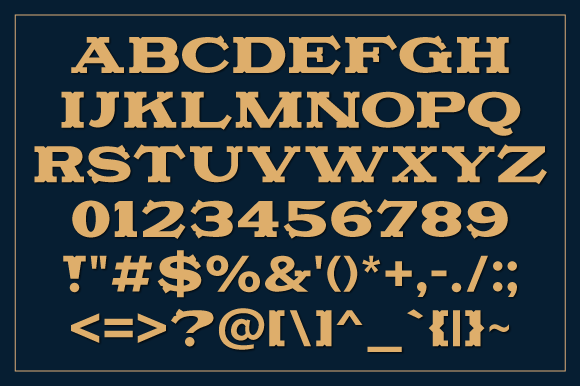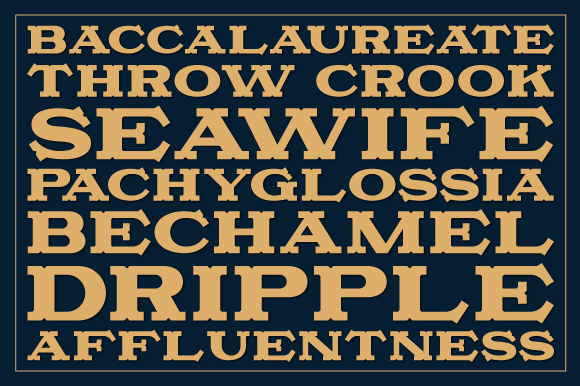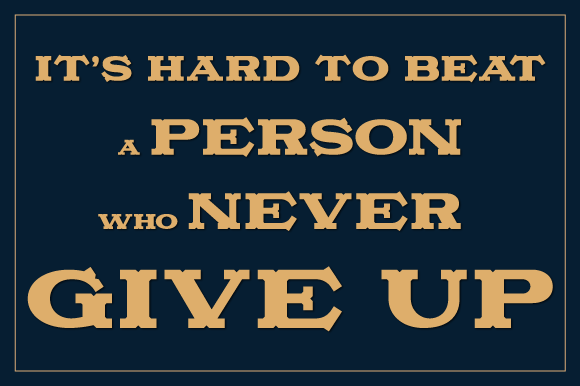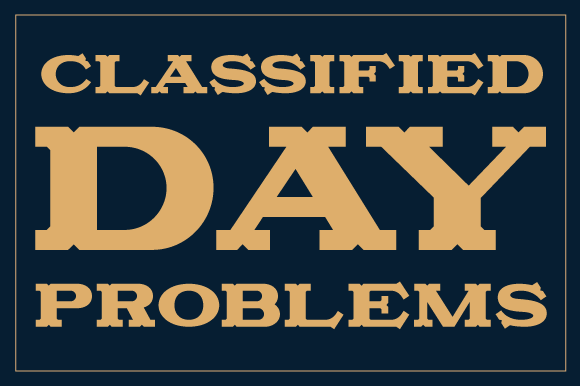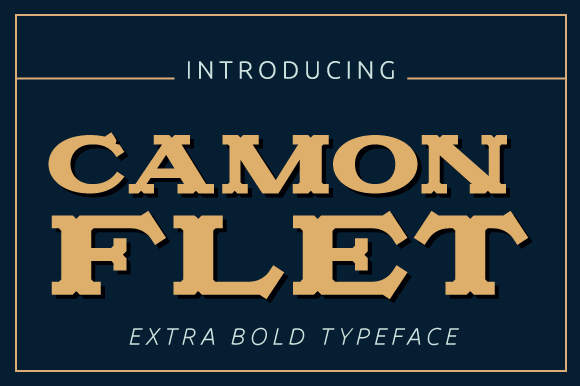
Introducing Camonflet Font: Elevate Your Designs with a Bold and Powerful Vintage Serif
Are you tired of using the same old fonts in your design projects? Do you want to add a touch of elegance and sophistication to your creations? Look no further than Camonflet Font, a bold and powerful vintage serif font that is sure to turn any design project into a standout!
What is Camonflet Font?
Camonflet Font is a carefully crafted vintage serif font that exudes confidence and style. Its bold and powerful design makes it perfect for a wide range of design projects, from logos and branding to posters and packaging. With its classic serif lines and modern twist, Camonflet Font is sure to add a touch of sophistication to any design.
Key Features of Camonflet Font
- Bold and Powerful Design: Camonflet Font is designed to make a statement. Its bold and powerful lines ensure that your design will stand out from the crowd.
- Vintage Serif Style: The font’s vintage serif style adds a touch of elegance and sophistication to any design.
- Highly Versatile: Camonflet Font can be used in a wide range of design projects, from logos and branding to posters and packaging.
- Easily Readable: Despite its bold design, Camonflet Font is easily readable, making it perfect for body text and headlines.
Why Choose Camonflet Font?
With so many fonts to choose from, why should you choose Camonflet Font? Here are just a few reasons:
- Unique Design: Camonflet Font has a unique design that will set your design project apart from the rest.
- Time-Saving: With Camonflet Font, you can create professional-looking designs in no time. Its bold and powerful design ensures that your design will stand out, without requiring hours of fine-tuning.
How to Use Camonflet Font
Using Camonflet Font is easy! Here are a few tips to get you started:
- Pair it with a Sans-Serif Font: Pair Camonflet Font with a sans-serif font for a classic and modern look.
- Use it for Headlines: Camonflet Font is perfect for headlines and titles. Its bold design ensures that your text will stand out.
- Experiment with Colors: Camonflet Font looks great in a wide range of colors. Experiment with different colors to find the perfect look for your design.
Design Inspiration with Camonflet Font
Still not sure how to use Camonflet Font? Here are a few design inspiration ideas to get you started:
- Retro-Style Posters: Create retro-style posters with Camonflet Font and a bold color scheme.
- Logo Design: Use Camonflet Font to create a bold and powerful logo for your brand.
- Packaging Design: Add a touch of elegance to your packaging design with Camonflet Font.